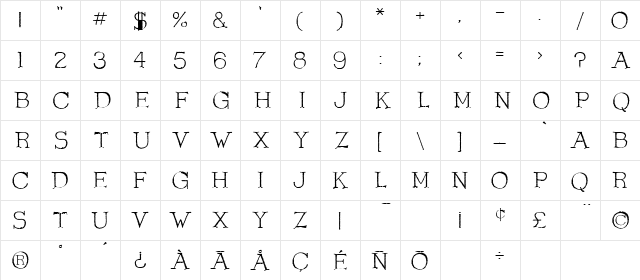
Olduvai Regular
Olduvai Family
Complete Olduvai Regular glyph index. Displaying only characters natively supported by Olduvai Regular font.
Design Context for Olduvai
Olduvai is a composed and adaptable typeface that performs quietly and consistently across a wide range of design contexts.